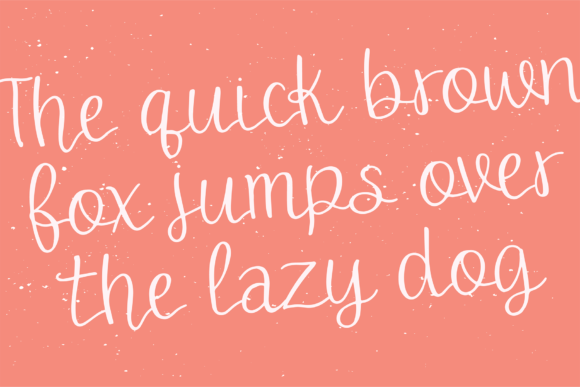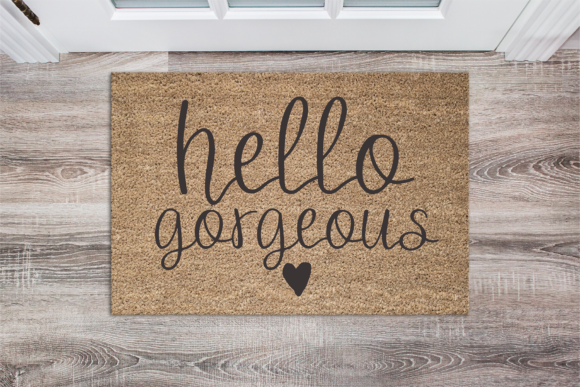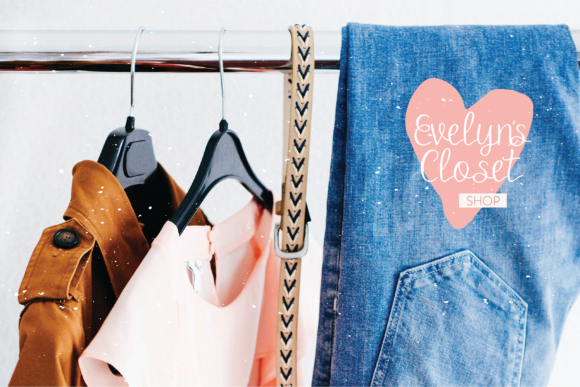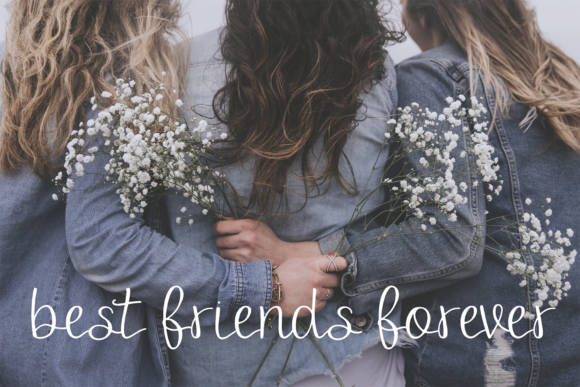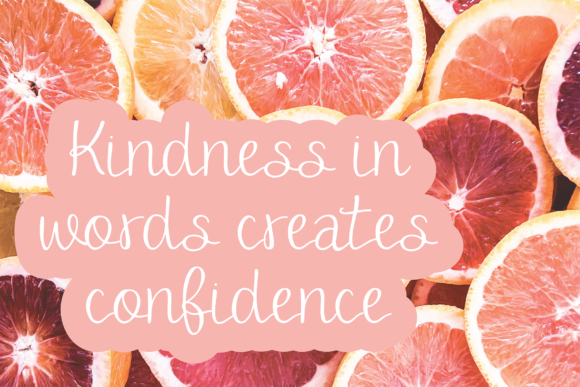
Aspyn Font: Elevate Your Designs with Elegance and Timeless Style
In the world of typography, few fonts manage to capture the essence of elegance and timelessness. Aspyn Font is one such remarkable typeface that has been making waves in the design community. Described as a flowing handwritten font with an elegant touch, Aspyn is perfect for designers and crafters looking to add a touch of sophistication to their projects.
The Distinctive Charm of Aspyn Font
Aspyn Font boasts an incredibly distinct style that sets it apart from other fonts. Its flowing lines and elegant curves give it a unique charm that can instantly elevate any design. Whether you’re working on a branding project, a wedding invitation, or a packaging design, Aspyn’s distinctive style is sure to make your work stand out.
One of the key benefits of Aspyn Font is its versatility. Its timeless style makes it suitable for a wide range of projects, from modern digital designs to traditional print materials. Here are some ideas on how you can use Aspyn Font:
- Branding and Logos: Create a lasting impression with Aspyn Font’s elegant style. Use it to craft logos, business cards, and letterheads that exude professionalism and sophistication.
- Wedding and Event Invitations: Add a touch of romance and elegance to your wedding or event invitations with Aspyn Font. Its flowing lines and curves create a beautiful, whimsical feel that’s perfect for special occasions.
- Packaging Design: Make your products stand out on store shelves with Aspyn Font’s unique style. Use it to create eye-catching labels, tags, and packaging materials that reflect your brand’s personality.
- Digital Designs: Aspyn Font is also perfect for digital designs, such as social media graphics, blog headers, and website titles. Its elegant style will add a touch of sophistication to your online presence.
Why Designers and Crafters Love Aspyn Font
So, what makes Aspyn Font a favorite among designers and crafters? Here are a few reasons:
- Elegant and Sophisticated: Aspyn Font’s elegant style adds a touch of sophistication to any design. Its timeless charm ensures that your work will remain stylish for years to come.
- Easy to Read: Despite its elegant style, Aspyn Font is easy to read, making it perfect for body text and headlines.
- Highly Versatile: Aspyn Font can be used for a wide range of projects, from digital designs to traditional print materials.
- Unique and Distinctive: Aspyn Font’s unique style sets it apart from other fonts, ensuring that your work will stand out from the crowd.
Tips for Using Aspyn Font Effectively
To get the most out of Aspyn Font, here are some tips for using it effectively:
- Pair it with Other Fonts: Aspyn Font pairs well with other fonts, such as sans-serif fonts or script fonts. Experiment with different combinations to find the perfect match for your project.
- Use it for Headlines and Titles: Aspyn Font’s elegant style makes it perfect for headlines and titles. Use it to create eye-catching headings that draw attention to your content.
- Experiment with Colors: Aspyn Font looks great in a variety of colors, from bold and bright to soft and pastel. Experiment with different colors to find the perfect match for your project.
Aspyn Font is a truly special typeface that offers a unique blend of elegance and timelessness. Its distinctive style makes it perfect for a wide range of projects, from branding and logos to wedding invitations and packaging design. Whether you’re a designer or crafter, Aspyn Font is sure to become a favorite in your collection. So why wait? Fall in love with Aspyn Font’s incredibly distinct and timeless style, and use it to create spectacular designs that will leave a lasting impression.